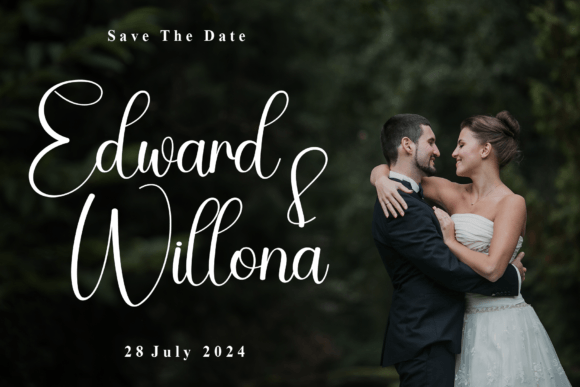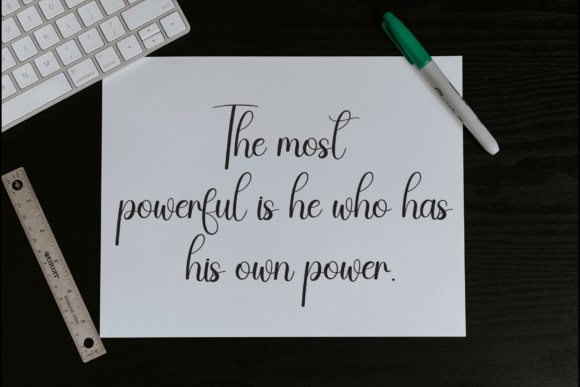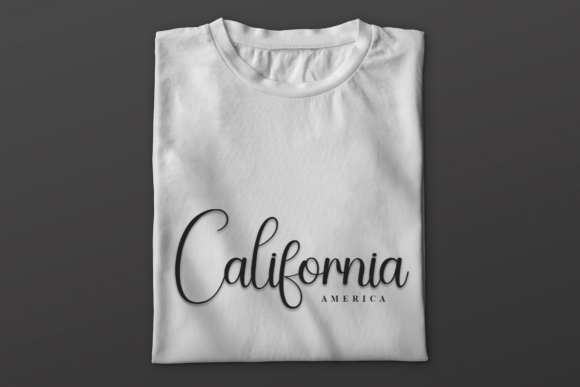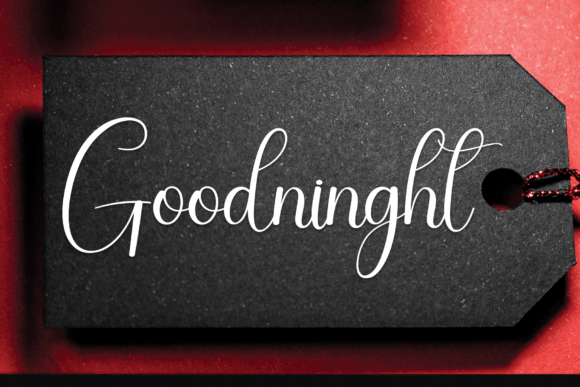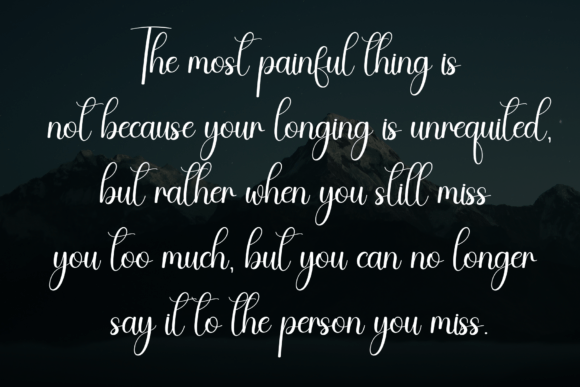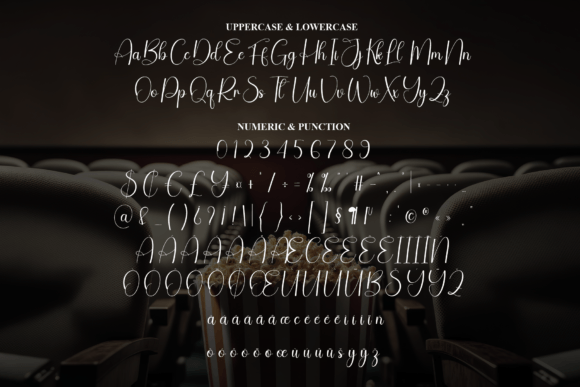
The Bigmovie Font: Elevate Your Designs with Elegance and Charm
Have you ever been in the middle of a design project, and suddenly, you’re stuck on finding the perfect font? I recall a recent experience where a client asked for a sophisticated yet personal touch for their branding. After scouring through numerous fonts, I stumbled upon Bigmovie – a stylish handwritten script font that instantly caught my attention. Its flowing, graceful curves exuded elegance and charm, making it an ideal choice for the project.
What I Love About Bigmovie ✨
- ✅ Elegant and charming: Bigmovie adds a touch of sophistication to any design.
- ✅ Versatile: Suitable for invitations, logos, branding, and more.
- ✅ Delicate strokes: Bring warmth and creativity to your projects.
- ✅ Easy to read: Despite its elegant nature, Bigmovie remains clear and legible.
While Bigmovie is an excellent font, there are a few things to consider:
- 🤔 Limited use in very formal or traditional contexts: Bigmovie’s elegant nature might not fit very formal projects.
- ⚠️ May not be ideal for very long texts: Its elegant and cursive nature might make it harder to read in large blocks of text.
The Story Behind Bigmovie: Designer Inspiration
Bigmovie was created with the intention of bringing a touch of elegance and charm to designs. Its designer sought to craft a font that would be both sophisticated and personal, making it suitable for a wide range of projects. The font’s delicate strokes and flowing curves are a testament to the designer’s skill and attention to detail.
Q: Is Bigmovie suitable for body text?
A: While Bigmovie is elegant and charming, it’s best suited for headings or short texts. Its cursive nature might make it harder to read in large blocks of text.
Q: Does Bigmovie support OpenType features?
A: Yes, Bigmovie supports OpenType features like ligatures and stylistic alternates, allowing you to add more variety to your designs.